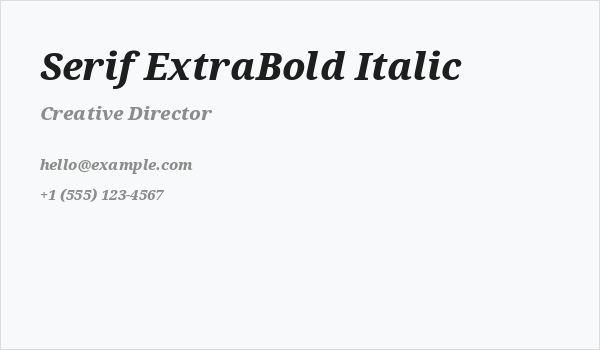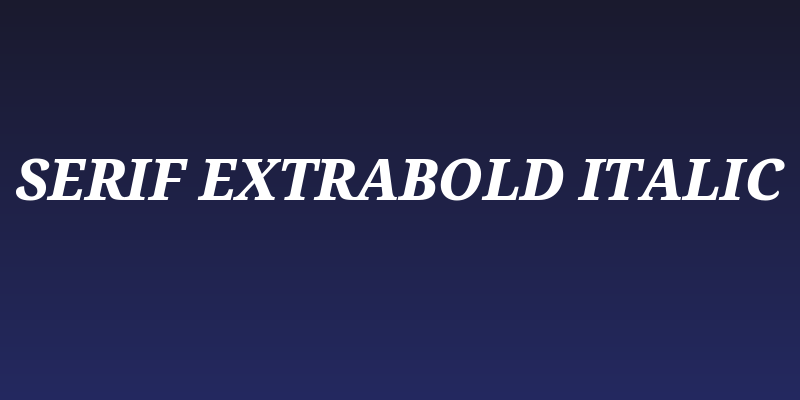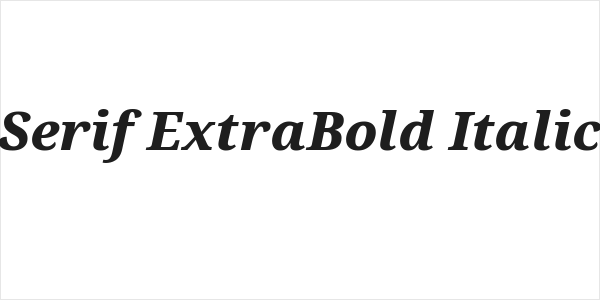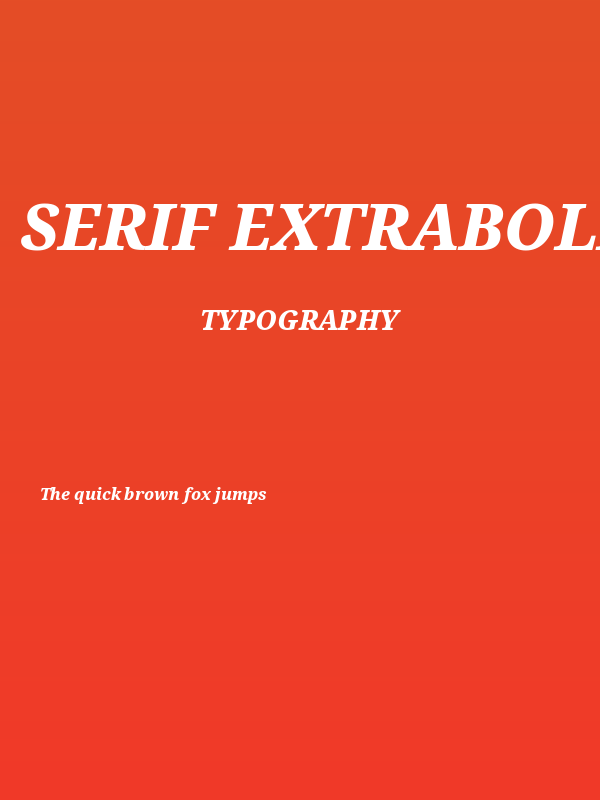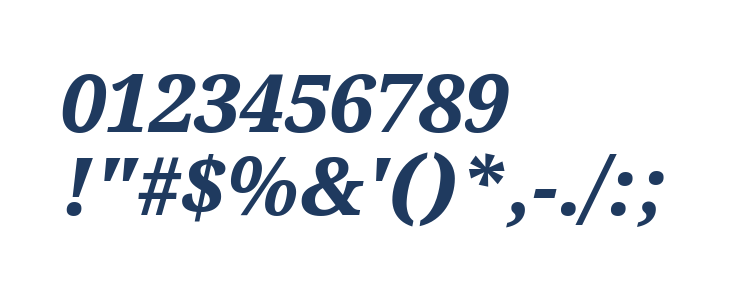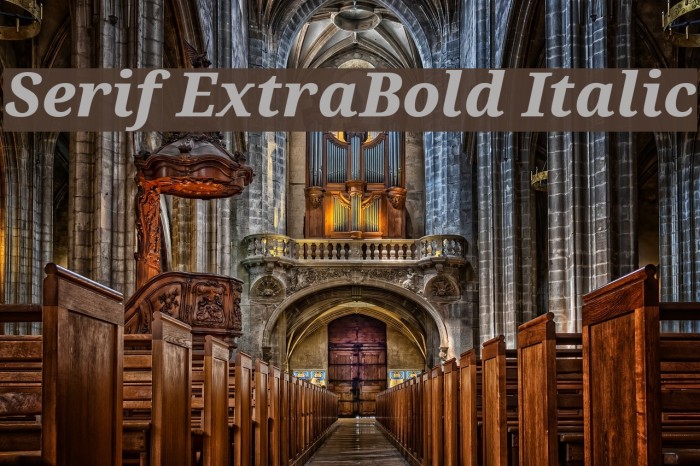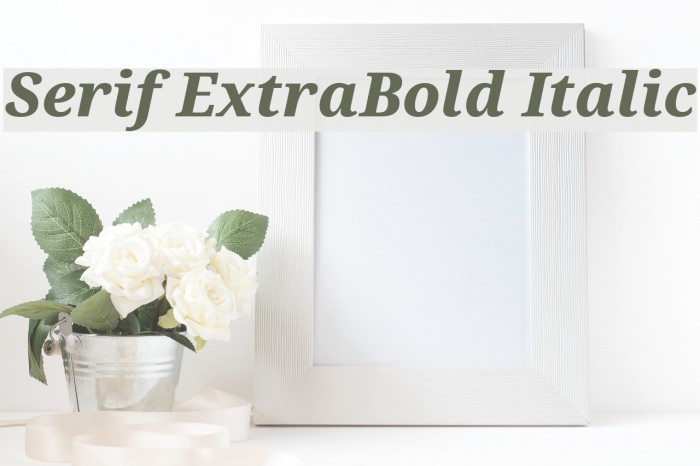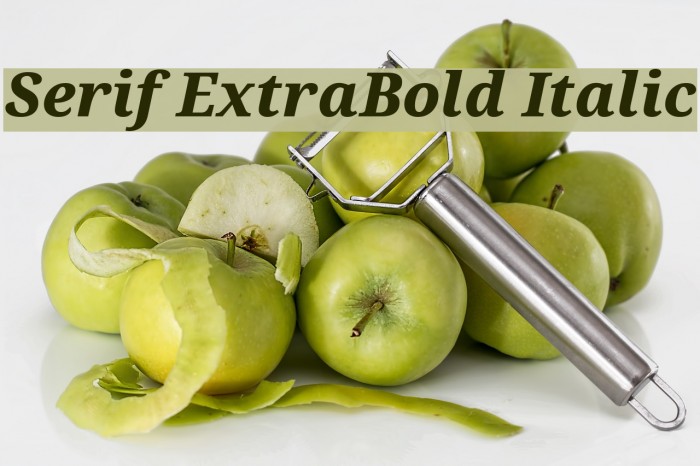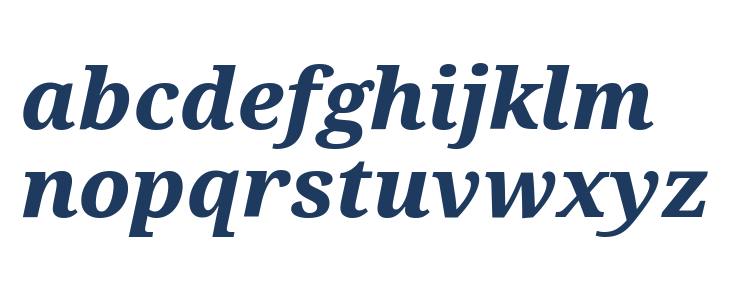
Serif ExtraBold Italic Font
Serif ExtraBold Italic Description
This font exudes a classic elegance with its serif style, characterized by pronounced, sweeping curves and a robust presence. The extra bold weight gives it a commanding appearance, making it ideal for attention-grabbing headlines or titles. Its italic nature adds a touch of sophistication and dynamism, enhancing its visual appeal. The characters are well-defined with high contrast between thick and thin strokes, which contributes to its readability and aesthetic charm. The spacing between characters is normal, ensuring clarity and legibility even in dense text settings. This font is versatile, suitable for both traditional and modern design projects.
| Proposed Projects | Ideal for book covers, magazine headlines, branding materials, and elegant invitations. |